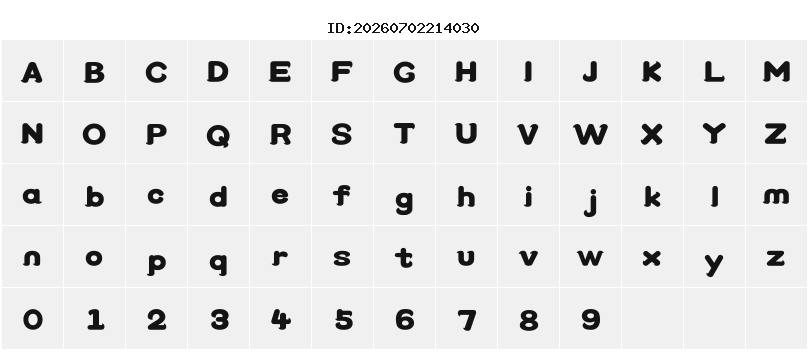
A020-Sounso Rare Preview
• Font Name: A020-Sounso Rare
• Full Font Name: A020-Sounso Rare
About A020-Sounso Rare.ttf
A020-Sounso Rare.ttf is a modern, elegant sans-serif font designed for ultimate readability and visual harmony. Perfect for branding, headlines, web design, and print materials.